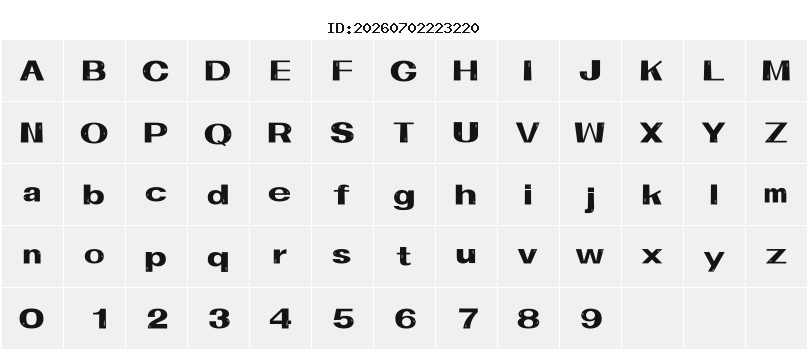
284-上首北斗体 Preview
• Font Name: 284-上首北斗体
• Font ID: 284-SSBeiDouTi:Version 4.00
• Full Font Name: 284-上首北斗体
• Version: Version 4.00 October 21, 2023
• PostScript Name: 284-SSBeiDouTi
• Character Count: 7567
• Manufacturer: 上首造字
About 284-上首北斗体.ttf
284-上首北斗体.ttf is a modern, elegant sans-serif font designed for ultimate readability and visual harmony. Perfect for branding, headlines, web design, and print materials.